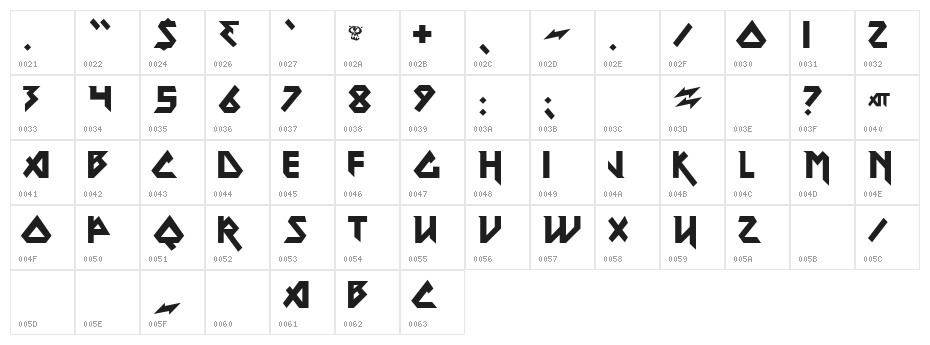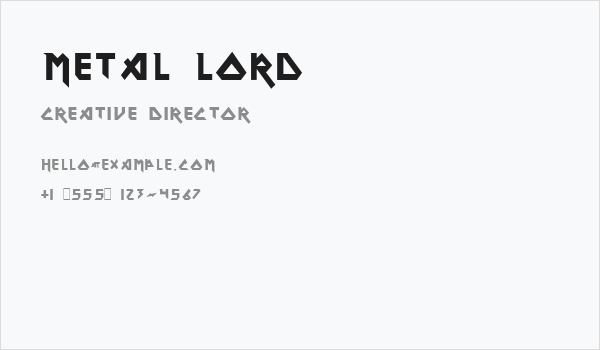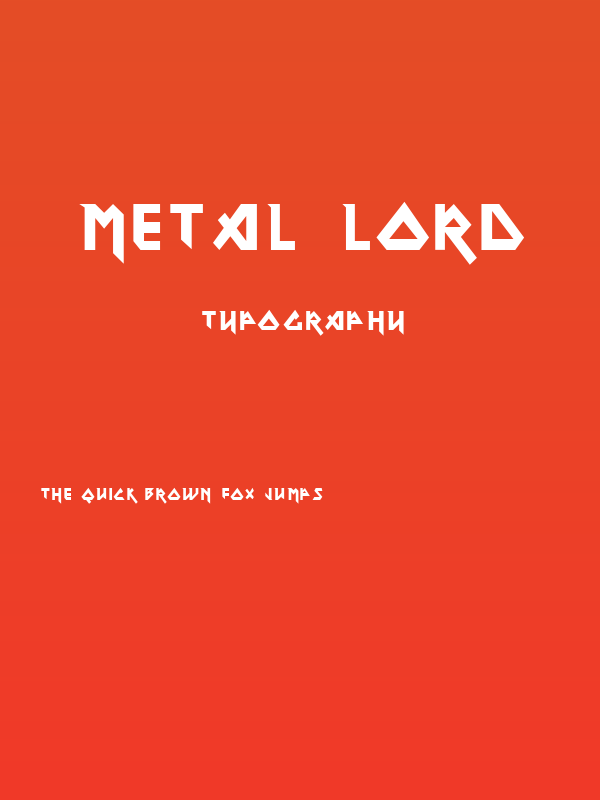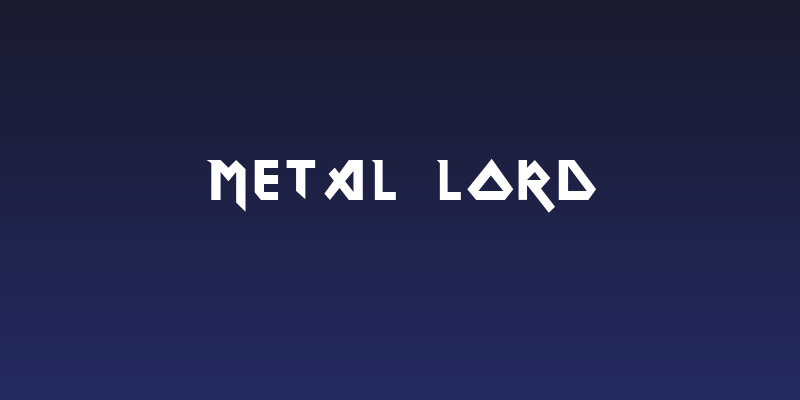
Metal Lord Font
Metal Lord Description
This font features a bold, angular design with sharp edges and geometric forms, reminiscent of heavy metal and rock aesthetics. The uppercase and lowercase letters maintain a consistent style, emphasizing strong vertical and diagonal lines. Numbers and special characters follow the same design principles, contributing to a cohesive and striking appearance. The font's aggressive and edgy look makes it ideal for projects that require a bold statement.
Overall StyleModern, Decorative
Proposed ProjectsAlbum covers, band logos, event posters, merchandise designs, and any project needing a bold, edgy look.